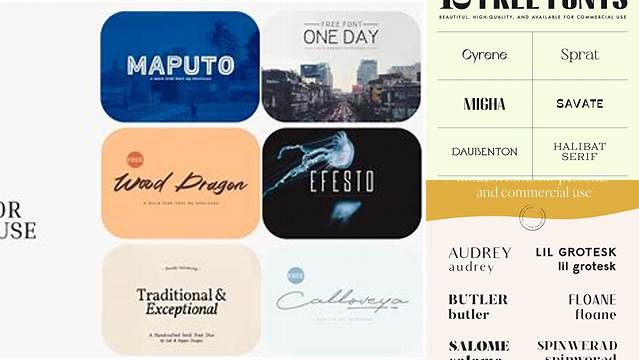
Top Free Fonts For Commercial Use: Your Ultimate Guide
Hey guys! Finding the best free font for commercial use can feel like searching for a needle in a haystack, right? You want something that looks good, is versatile, and – most importantly – won't land you in legal hot water. Let's dive into the world of free fonts, ensuring you not only find beautiful typography but also stay on the right side of copyright law. This guide will equip you with everything you need to know to choose the perfect fonts for your commercial projects. We'll cover where to find them, how to use them, and what to watch out for. So, grab your coffee, and let's get started on this font-tastic journey!
H2: Where to Find the Best Free Fonts for Commercial Use: Top Websites
Alright, now that we've got the licensing stuff down, let's talk about where to actually find these amazing, free fonts. Finding the best free font for commercial use starts with knowing where to look. There are several websites dedicated to providing high-quality, free fonts, but it's important to stick to reputable sources to avoid accidentally downloading malware or violating any licensing agreements. Let's explore some of the top websites, offering a wide selection of fonts and easy-to-understand licensing information.
H3: Google Fonts: Your Go-To Resource
Google Fonts is, hands down, one of the best and most popular resources for free, commercial-use fonts. It’s a massive library with hundreds of fonts, all licensed under the SIL Open Font License. This means you're free to use them for commercial projects, modify them, and even embed them in your website with ease. The website is super user-friendly. You can filter fonts by style, thickness, and other characteristics. Plus, you can preview your text in any font to get a feel for how it will look. Google Fonts also provides information on each font's character set and language support. This is particularly helpful if you need to support multiple languages in your design. It's a safe, reliable, and constantly updated resource, making it an ideal starting point for anyone looking for the best free font for commercial use. The huge selection ensures you'll find something perfect for your project, and the ease of use makes the whole process a breeze. You can be confident you are on the right track because Google does the necessary background checks.
H3: Font Squirrel: Curated and Verified Fonts
Font Squirrel is another fantastic option for finding the best free font for commercial use. They have a carefully curated collection of fonts, meaning each one has been checked for quality and licensing. Font Squirrel does the hard work for you, ensuring that all fonts are free for commercial use and that the licensing information is clear and easy to understand. They also offer a "Font Identifier" tool that can help you identify fonts you see in images or websites. This is a great feature if you're trying to find a specific font you admire. Furthermore, Font Squirrel provides a selection of fonts that are specifically designed for web use, making them ideal for websites and online projects. This focus on quality and usability makes Font Squirrel a top choice. They ensure you can use fonts without any licensing headaches, and you'll discover new fonts you might not find elsewhere.
H3: DaFont: A Vast but Carefully Navigated Collection
DaFont is a massive font directory, and while it's a valuable resource for finding fonts, you need to be extra careful. The sheer volume of fonts can be overwhelming, and not all of them are free for commercial use. When using DaFont, always double-check the license information before downloading a font. Look for fonts labeled as "100% Free" or "Free for commercial use." If the license isn't clear, it's best to avoid the font. The website makes it easy to filter fonts by style and theme, which can help you narrow down your search. Because of the volume of fonts, DaFont offers a range of creative options. Just make sure you are extremely careful, so that you find the best free font for commercial use without issues.
H3: Other Reliable Font Resources
In addition to the major players, there are other great places to find free fonts for commercial use. Websites like Behance and Dribbble often showcase fonts from independent designers, who sometimes offer free versions of their fonts. These can be hidden gems, but, as always, double-check the license before downloading. Some designers also offer free fonts on their personal websites, making it easy to find unique and stylish options. Always verify the license directly with the designer or from their official website. Remember, staying vigilant about licensing is key to using the best free font for commercial use and avoiding any legal troubles. Check the license, make sure it is commercial-use friendly, and you’ll be well on your way.
H2: Choosing the Right Font: Considerations for Commercial Use
Selecting a font is not just about aesthetics; it's a branding decision. Choosing the best free font for commercial use for your project involves several factors. Consider the tone you want to convey, the readability of the font, and the overall message you're trying to communicate. Let's explore these key aspects.
H3: Understanding Your Brand's Personality
Your font should align with your brand's personality. Is your brand playful and quirky, or sophisticated and professional? A playful brand might benefit from a whimsical script font, while a professional brand might opt for a clean, modern sans-serif. The font you choose should reflect your brand's values and target audience. A font that resonates with your audience builds trust and strengthens your brand identity. Think about the feelings you want your brand to evoke. Does the font support that feeling? Before choosing a font, brainstorm your brand's key characteristics and find fonts that match. This connection ensures you are using the best free font for commercial use that represents your brand.
H3: Readability and Legibility: A Must-Have
Readability is king. The font should be easy to read, especially in the context of your project. For websites, body text needs to be clear and legible, no matter the device or screen size. Avoid overly ornate fonts for long blocks of text, as they can strain the eyes. Legibility is even more critical when designing for accessibility. Some people with visual impairments may struggle to read certain fonts, so choose fonts that are clear and easy to understand. Before committing to a font, test it in different contexts. See how it looks in body text, headlines, and on various backgrounds. Make sure it’s not only visually appealing but also user-friendly. Using a readable font shows you care about your audience, and they are more likely to engage. Remember, choosing the best free font for commercial use is about making sure your audience can easily consume your message.
H3: Font Pairing: Combining Styles Effectively
Font pairing is an art form. Combining two fonts can enhance the visual appeal of your design. The goal is to create contrast and visual interest without being distracting. A good starting point is to pair a serif font (with small strokes at the ends of letters) with a sans-serif font (without these strokes). Experiment with different combinations to see what works best for your project. Consider the relationship between the fonts. They should complement each other. The fonts should have a similar weight and style. Tools like FontPair can help you discover good font pairings. There are even websites that offer free font pairing suggestions. You can also use a tool such as Canva to easily try combinations. When you practice font pairing, you will create more sophisticated and compelling designs, showing you are using the best free font for commercial use creatively.
H2: The Importance of Font Style and Categories
Fonts come in various styles and categories, each serving a different purpose. Understanding the different font families can help you select the best free font for commercial use for your specific needs.
H3: Serif Fonts: The Classic Choice
Serif fonts have small strokes (serifs) at the ends of the letters. They are often associated with tradition, elegance, and readability. Serif fonts are a great choice for body text, especially in print, as the serifs help guide the eye across the page. Classic examples include Times New Roman and Georgia. However, be mindful of the font's weight and size. When used on a website, make sure the font is legible and not too thin or light. For commercial use, consider how the font's characteristics align with your brand's personality and the overall message you're trying to convey. If you're aiming for a classic and trustworthy feel, serif fonts can be a great option for the best free font for commercial use.
H3: Sans-Serif Fonts: Modern and Versatile
Sans-serif fonts lack the small strokes, making them appear clean and modern. Sans-serif fonts are popular for websites and digital interfaces because of their clarity. They often feel more contemporary and are perfect for logos, headlines, and shorter blocks of text. Examples include Arial, Helvetica, and Open Sans. Because they are so versatile, they are a great option for various commercial projects. Many of the best free font for commercial use are sans-serif fonts because of their clean look and accessibility, helping convey an overall feeling of modern design.
H3: Script Fonts: Adding a Personal Touch
Script fonts mimic handwriting and add a personal touch. They can be elegant, playful, or artistic, depending on their design. They are great for logos, invitations, and headlines where you want to create a sense of personality. Be careful with script fonts. Don't use them for body text because they can be challenging to read. Ensure the font is easy to read at the selected size. If the font is too elaborate, it will be difficult to read. Carefully consider if the font supports your brand's personality. Many designers and brands use script fonts sparingly, to make the font feel custom-designed. Remember, you are looking for the best free font for commercial use that meets the needs of your project.
H3: Display Fonts: Bold and Eye-Catching
Display fonts are designed to grab attention. They come in a variety of styles, from bold and chunky to highly stylized and decorative. They are best used for headlines, titles, and short bursts of text, as they are not generally suitable for body text. Display fonts can make a statement. They can have a specific tone and personality. Use them sparingly, as overusing them can detract from the overall design. Consider how the display font works with other fonts in your design. You will want to balance the styles. Display fonts are excellent for making a visual impact. Display fonts used for commercial projects can be an eye-catching option to select the best free font for commercial use.
H2: Practical Tips for Using Free Fonts in Your Projects
Once you've selected the best free font for commercial use, here are some practical tips for using them effectively in your projects:
H3: Embedding Fonts on Websites: Best Practices
Embedding fonts on your website is simple. Most font websites, like Google Fonts, provide code snippets to include the font in your website's CSS file. You can then apply the font to your HTML elements. Keep performance in mind. Embedding too many fonts can slow down your website. Consider loading only the font weights and styles you need. Also, compress font files. The use of the best free font for commercial use will not work if a website loads too slowly. This can improve the user experience and boost SEO. Use a Content Delivery Network (CDN) to host your fonts. CDNs distribute your font files across multiple servers, reducing loading times for users. Testing your website's font rendering on different devices and browsers is essential. Make sure your font displays consistently and is easy to read. Website font usage is important for commercial projects and should be done carefully.
H3: Designing Logos and Branding Materials
When designing logos, the font is a key element. Select a font that embodies your brand's identity and resonates with your target audience. Ensure the font is scalable and legible at different sizes, from business cards to billboards. Avoid using too many fonts in your logo. Using one or two fonts provides a clean and cohesive look. Test your logo design in various color schemes and backgrounds. Make sure it’s visually appealing and memorable. If you're unsure, hire a professional designer. They will have the expertise to help you create a professional logo. The font is the most important part of the logo. The best free font for commercial use used in a logo will represent the values of the brand.
H3: Creating Marketing Materials: Flyers, Brochures, and More
Use fonts strategically in your marketing materials. Create a visual hierarchy using font sizes, weights, and styles. Make sure headlines are clear and attention-grabbing. Body text should be easy to read. Consider the tone you want to convey. A professional brand might use a clean sans-serif font, while a creative brand could use a more distinctive script font. Ensure your marketing materials are accessible. Avoid using fonts that are difficult to read, and make sure there is enough contrast between the text and the background. Consistency is key. Use the same fonts and design elements throughout your marketing materials to build brand recognition. The selection of the best free font for commercial use will influence the appeal of the design.
H2: Avoiding Common Mistakes with Free Fonts
Even with the best free font for commercial use, there are common pitfalls. Here's how to avoid them:
H3: Ignoring Licensing Agreements: The Consequences
Failing to comply with font licensing agreements can lead to serious legal consequences, including copyright infringement lawsuits. Always read and understand the license terms before using a font. If in doubt, consult with a legal professional or contact the font designer. Don't assume a font is free for commercial use just because it's available for download. Verify the license, and make sure you are using the font in a way that complies with the license terms. Keep a record of all the fonts you use and their licenses. This can be helpful if you're ever audited or if you need to demonstrate compliance. Licensing agreements are important to protect the font creators. Never overlook license information. The consequences of not doing so can be severe and expensive. Font licensing, if done incorrectly, can result in a business's failure. Finding the best free font for commercial use will prevent this.
H3: Overusing Fonts: Creating Visual Clutter
Overusing fonts can make your design look cluttered and unprofessional. Stick to a limited number of fonts, typically no more than two or three. Use fonts strategically to create a visual hierarchy. Use a different font for headlines and body text. Make sure your fonts complement each other. Avoid fonts that clash or compete for attention. Too many fonts will create distraction. It can also make your design difficult to read. Sometimes less is more. Use whitespace. It can help your design look clean and inviting. The appropriate use of the best free font for commercial use will help avoid visual clutter.
H3: Poor Readability: Neglecting User Experience
Poor readability is a major turn-off. Ensure your text is easy to read. Use a clear and legible font. Consider the font size, line spacing, and letter spacing. Make sure there's enough contrast between the text and the background. Avoid using overly thin or light fonts, as they can be difficult to read. Test your design on different devices and screen sizes to ensure readability. Your design must be readable on all devices. Think about accessibility. Consider users with visual impairments. The use of the best free font for commercial use should be user-friendly.
H2: Staying Updated with Font Trends and Best Practices
The world of fonts is constantly evolving. Here's how to stay current:
H3: Following Font Design Blogs and Websites
Stay informed about the latest font trends. Subscribe to font design blogs and websites. Follow font designers and foundries on social media. Check sites such as Typewolf for the latest industry news. Font design trends change. Pay attention to what's popular and what's working well. Learning from other creators is important. Explore innovative font designs and combinations. It can help you discover new fonts. Learning from other designers ensures you are using the best free font for commercial use.
H3: Experimenting with New Fonts and Combinations
Don't be afraid to experiment. Download new fonts and try them out in your designs. Experiment with different font pairings. See how different fonts work together. Practice and try new things. Try to create your own unique combinations. Create designs for fun. This will give you a chance to practice and hone your skills. Keep learning. Trying new things is the key to finding the best free font for commercial use.
H3: Joining Online Design Communities and Forums
Connect with other designers and font enthusiasts. Share your work and get feedback. Learn from others and share your knowledge. Participate in discussions about font design and trends. Collaborate on projects. Join design communities and forums on social media. Connecting with others helps you become an expert and you will be more aware of the best free font for commercial use.
H2: Recap and Final Thoughts
Alright, guys, we've covered a lot of ground! From understanding font licenses to finding the best free font for commercial use, we've explored the critical aspects of using fonts for your commercial projects. Remember to always prioritize licensing, readability, and brand alignment. Don't be afraid to experiment and stay updated with the latest trends. By following these guidelines, you can confidently choose fonts that enhance your brand and protect your business. Happy designing!